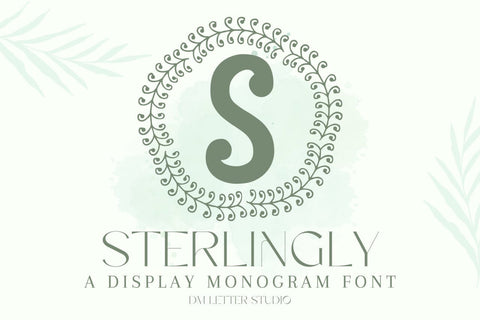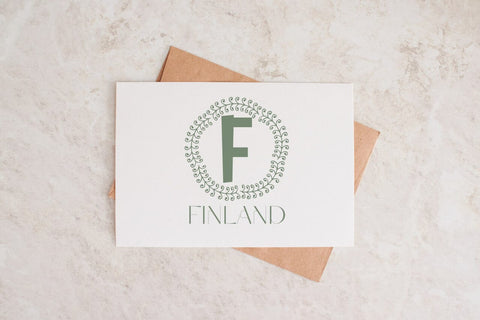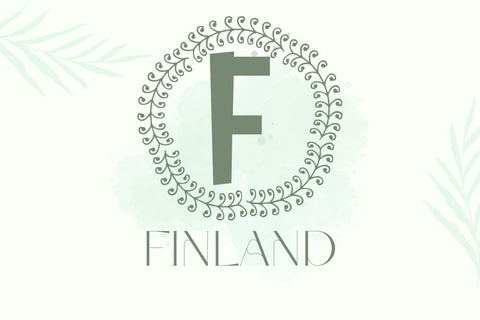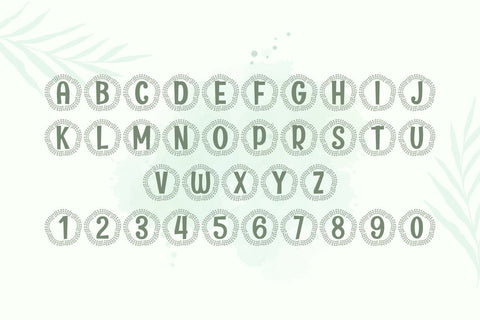
Sterlingly Monogram Font
Meet Sterlingly, the Monogram Font
Sterlingly Monogram Font turns simple initials into poised, boutique-ready emblems with a subtle luxury feel. Lines are smooth and balanced. Open counters keep tiny tags readable and thumbnails crisp, so your designs look polished from favor labels to entry signage. Use it for wedding suites, boutique logos, keepsake gifts, wax seals, stationery, and premium packaging. Because spacing is even and forms are calm, layouts come together fast and stay consistent across products.
Where this monogram font shines
Set single, double, or triple initials for logos, menus, place cards, and gift tags. Then frame them with laurel rings, ovals, rope circles, or fine rules to echo Sterlingly’s refined geometry. Since proportions favor symmetry and clarity, centered compositions snap into place in minutes. As a result, listings feel cohesive from invitations and signage to boxes and ribbons.
Design tips for Sterlingly Monogram
Keep initials large and let white space breathe. Pair the hero mark with a soft serif for body copy or a neat humanist sans for dates and labels. Add a fine inner stroke, micro shadow, or delicate frame for depth. Because the structure is airy and elegant, textured papers and metallic foils raise perceived value. Keep wording short so the monogram remains the hero on small favors and seals.
Select stylistic alternates for key letters
Curves tuned for foil, letterpress, engraving, laser cutting, and clean vinyl paths
Why creators choose this monogram font
You want elegance that reads at a glance and sells across many product types. Sterlingly Monogram Font delivers steady clarity, quick layout, and a cohesive brand voice from invites to packaging and gifts.